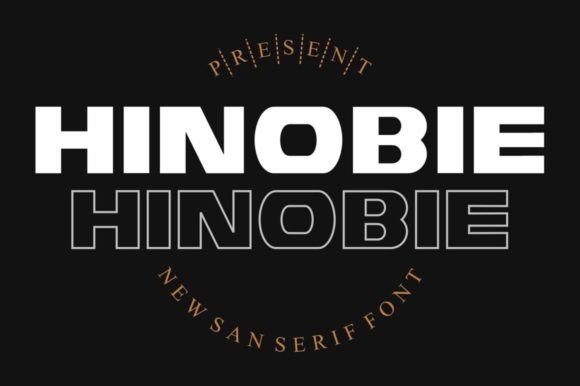
Discover Hinobie, the Sans Serif Font That Will Captivate Your Audience. Created by gatype, Hinobie is a sleek and modern font family tailored to elevate your web videos to new heights.
With its chiseled and contemporary structure, Hinobie effortlessly blends elegance and functionality. Its meticulously crafted characters exude a sense of sophistication, ensuring your messages stand out with clarity and impact.
As a sans-serif font, Hinobie embodies the essence of minimalism and simplicity, making it the perfect choice for creating clean and engaging designs. Its crisp lines and balanced proportions bring a touch of sophistication to any project.
Whether you're crafting dynamic titles, eye-catching subtitles, or informative graphics, Hinobie empowers you to communicate your ideas with confidence and style. Its versatility extends beyond web videos, making it equally suitable for print, branding, and digital marketing initiatives.
Unlock the full potential of your creative vision with Hinobie. Embrace the power of this contemporary sans-serif font and watch your web videos transcend the ordinary and captivate your audience like never before.